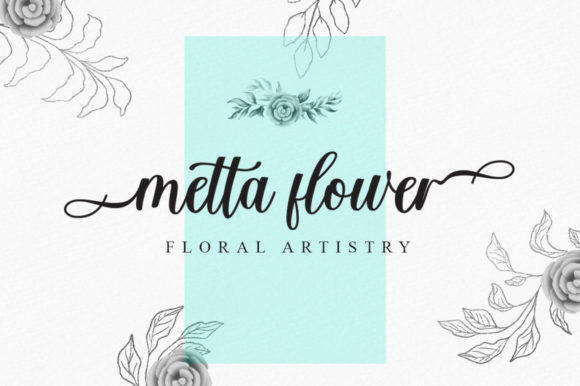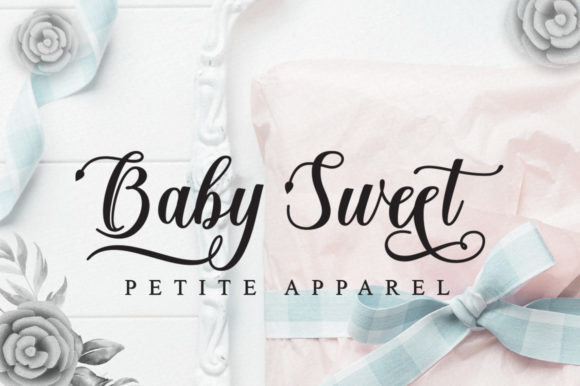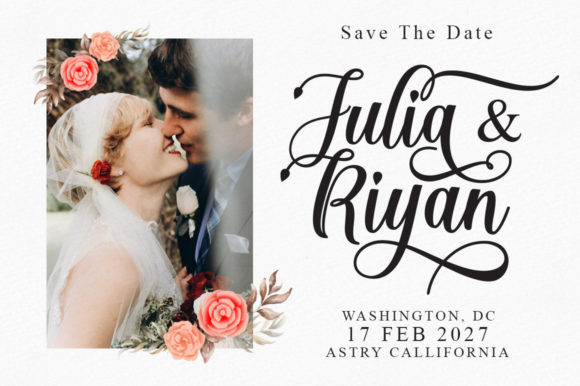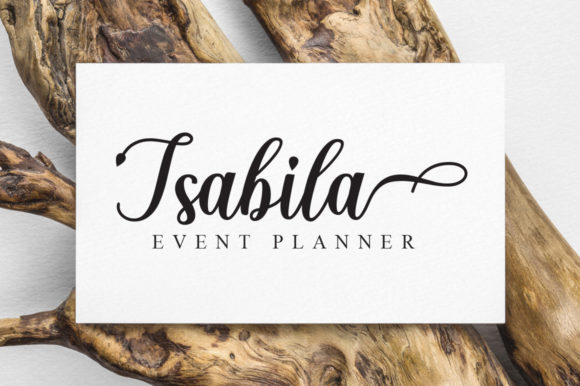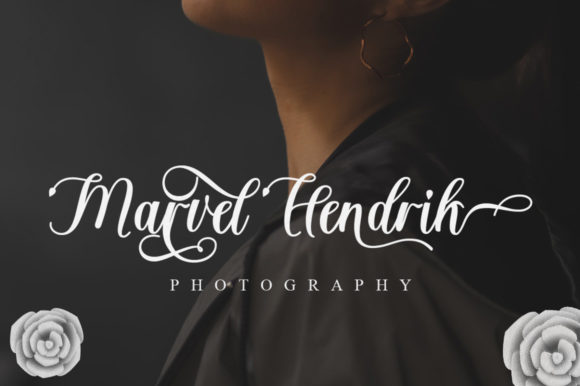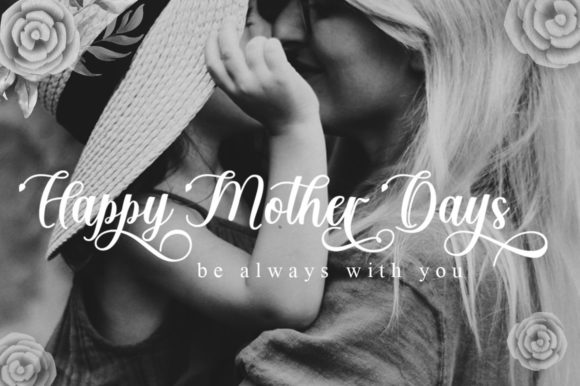
Introduction to Matheya Font
Imagine you’re working on a creative project and you need the perfect font to bring it all together. The words start flowing, but the right typography eludes you. You’ve tried several fonts, but none seem to capture the essence of your design. That’s where the Matheya Font comes in – a stylish script font that adds a neat and vibrant touch to any project.
As a valuable design resource, the Matheya Font offers a high-quality solution for designers looking to elevate their work. Its transparent background and versatile style make it an ideal choice for various design ideas, from creative projects to corporate branding. With the Matheya Font, you can confidently add a professional touch to your designs and take them to the next level.
Key Features of Matheya Font
- High-quality design resource suitable for creative projects and professional use
- Transparent background, allowing for seamless integration with various design elements
- Includes a range of styles and weights, providing flexibility for various design applications
- Resolution-independent, ensuring crisp and clear text display regardless of screen resolution
- Designed with attention to detail, making it a valuable addition to any design resource library
Honest Review: Matheya Font
I recently had the opportunity to try out the Matheya Font for a creative project, and I must say it’s been a game-changer. The high-quality design and crisp typography make it a fantastic addition to any project. One of the standout features is the transparent background, which allows for seamless integration with any design element.
- High-quality design and crisp typography
Overall, I’m impressed with the Matheya Font and would recommend it to designers looking for a high-quality design resource for their next creative project. With its free download and transparent background, it’s a great addition to any designer’s toolkit.
Tips for Getting the Most Out of Matheya Font
For the best results, use the Matheya Font on a high-resolution image or background. This will ensure that the font looks crisp and clear. Additionally, experiment with different font sizes and colors to add visual interest to your design.
The Matheya Font is perfect for a variety of creative projects, including branding, logos, and marketing materials. It’s also great for use in presentations, infographics, and other visual content.
Yes, the Matheya Font supports transparent backgrounds, making it ideal for creative projects that require a clean and minimalist design aesthetic. This feature also allows you to layer the font over images or other design elements with ease.